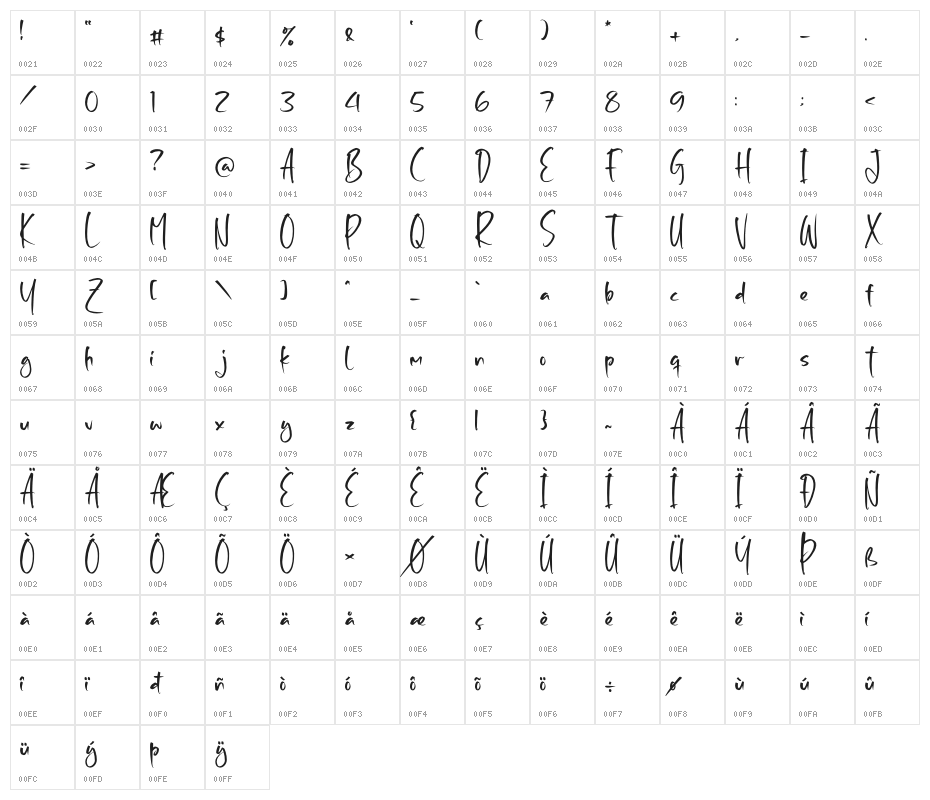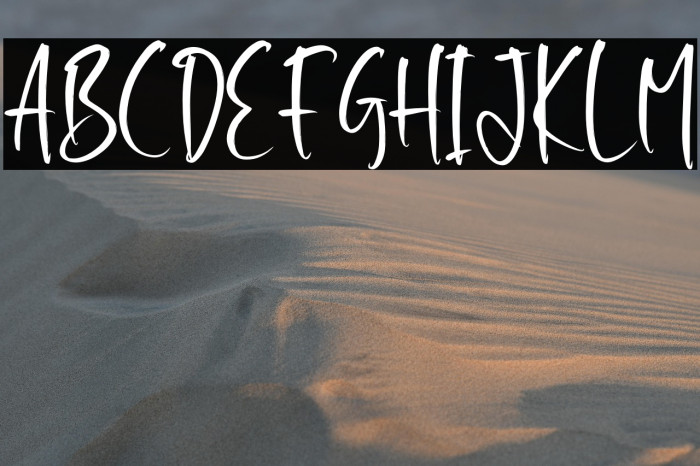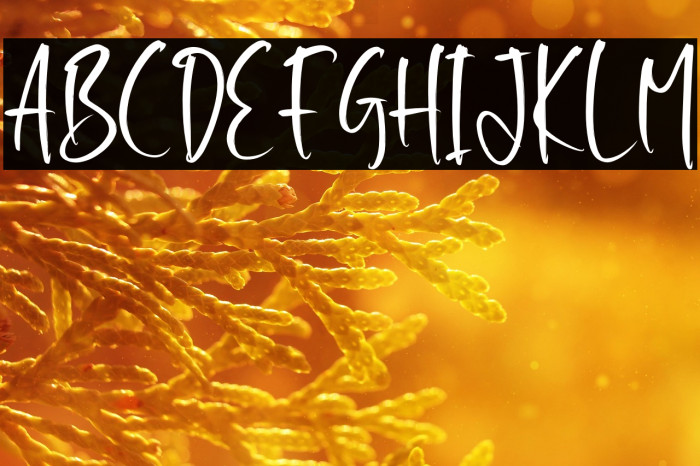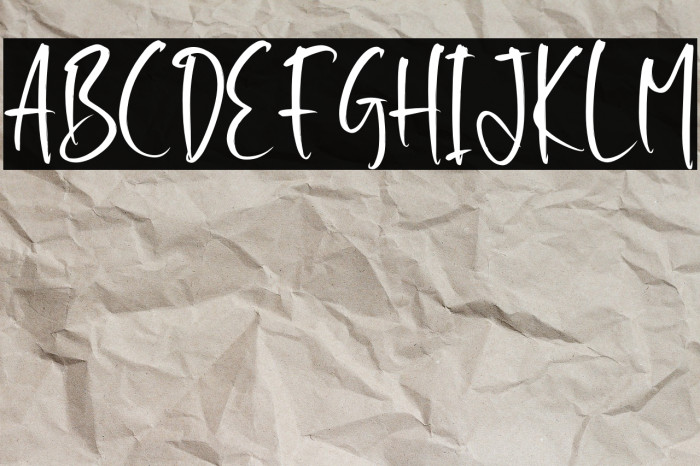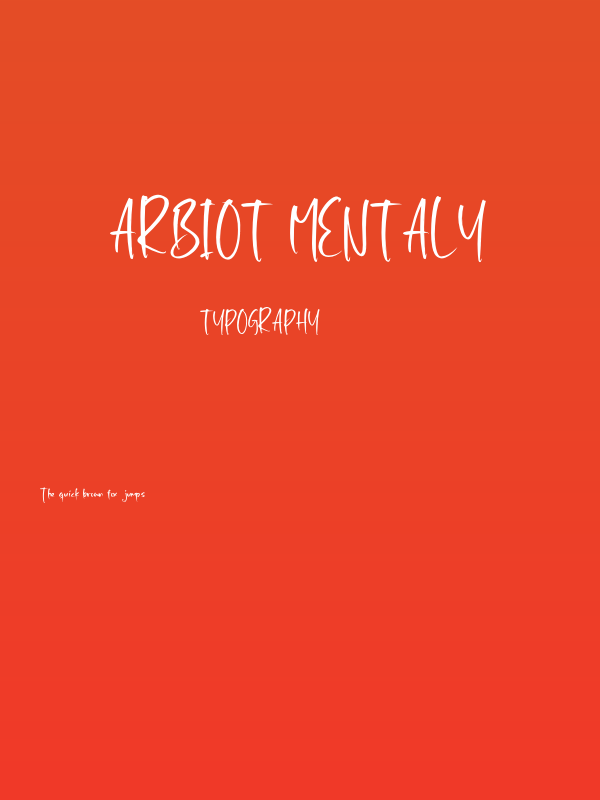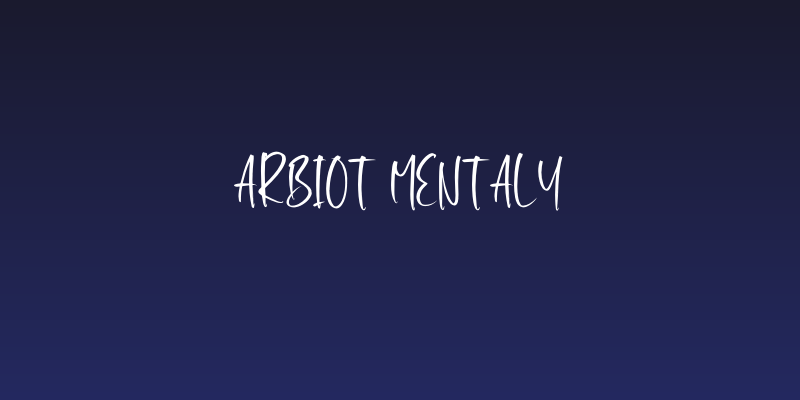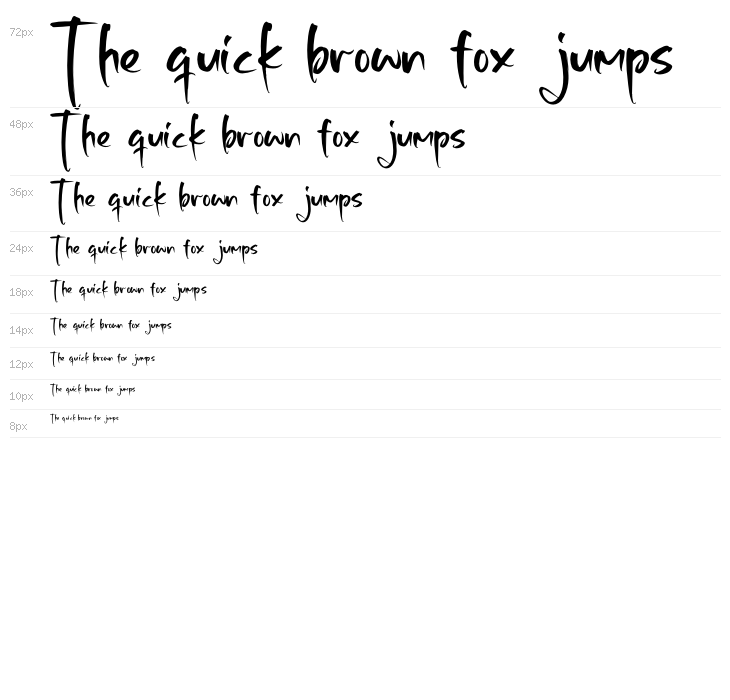
Arbiot Mentaly Font
Arbiot Mentaly Description
This font features a dynamic and expressive handwritten style, characterized by its fluid strokes and varying line thickness. The letters exhibit a sense of movement and spontaneity, with some characters having elongated and exaggerated forms. The uppercase letters are bold and prominent, while the lowercase letters maintain a playful and casual appearance. The numerals and special characters are consistent with the overall lively aesthetic, making the font suitable for creative and informal applications.
| Proposed Projects | Ideal for greeting cards, invitations, posters, and branding projects that require a personal and artistic touch. |